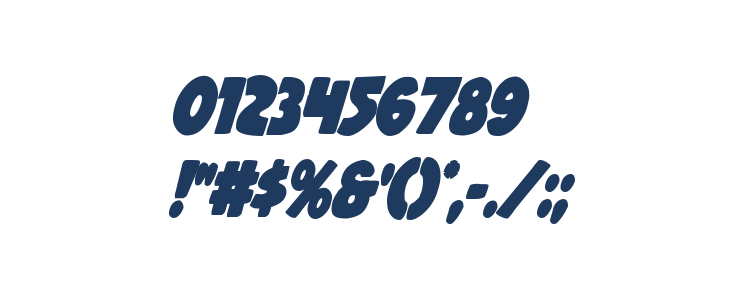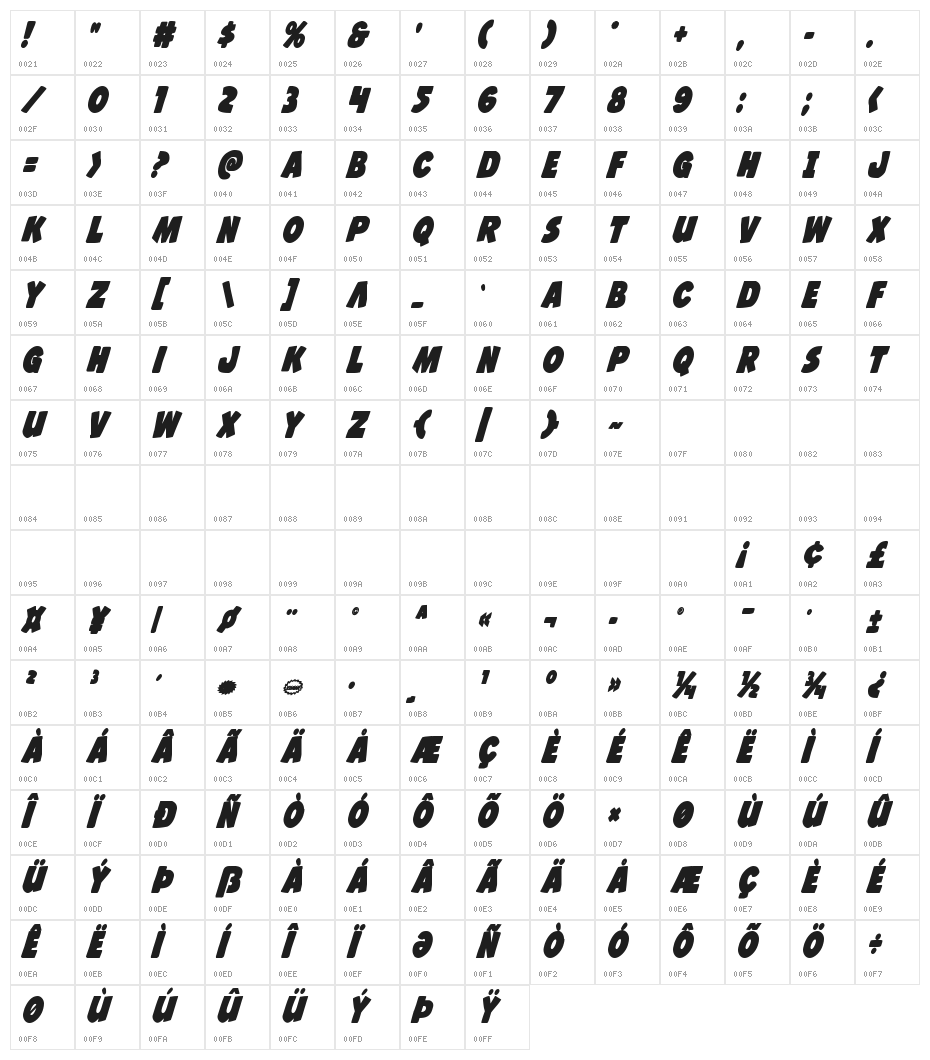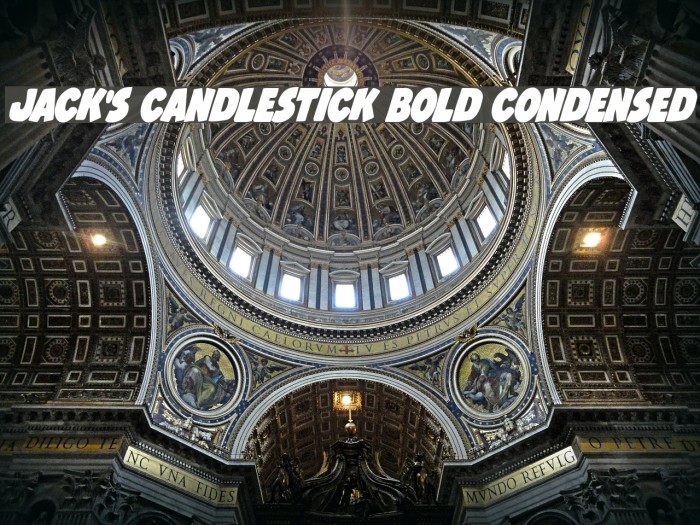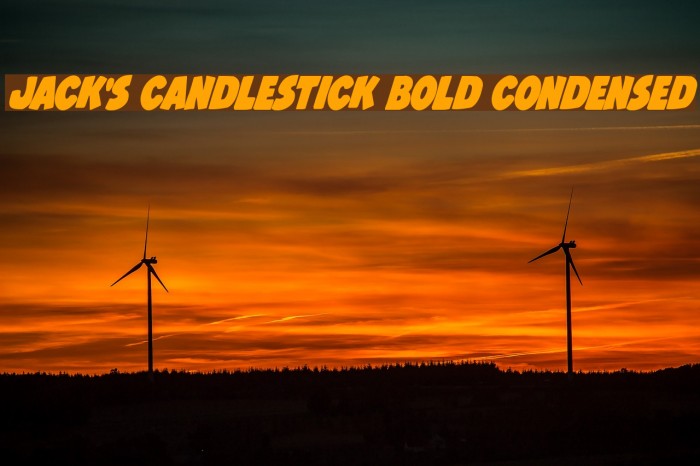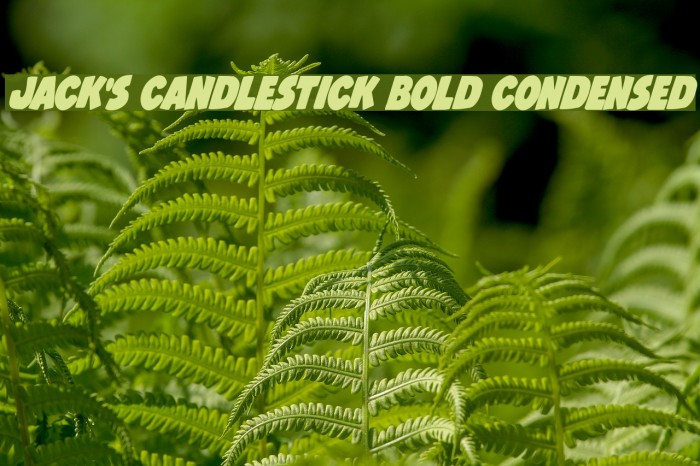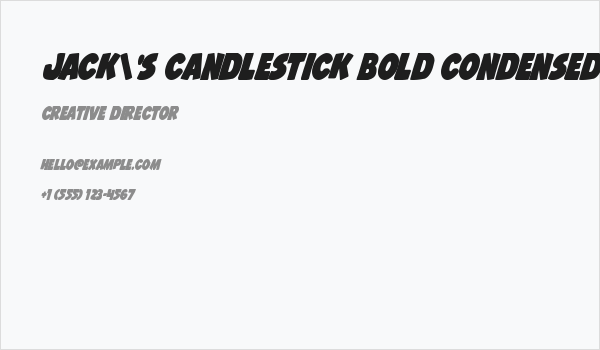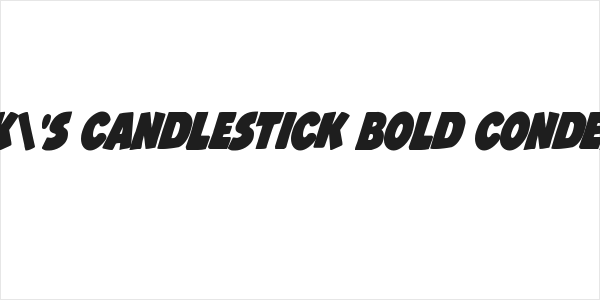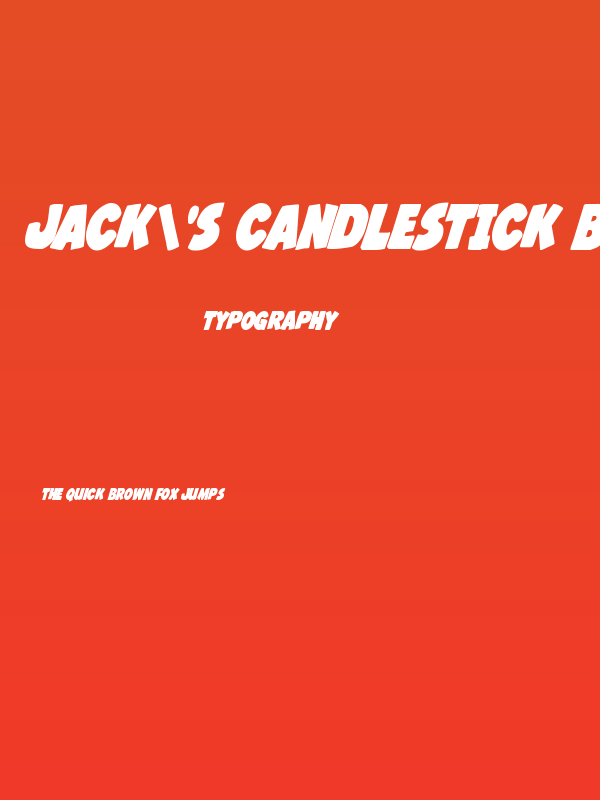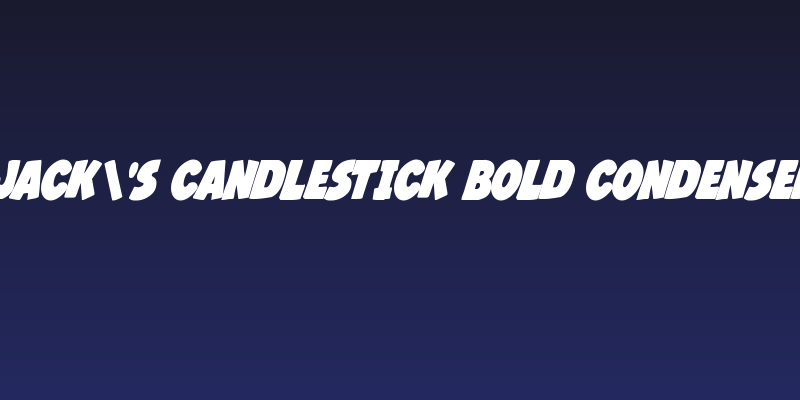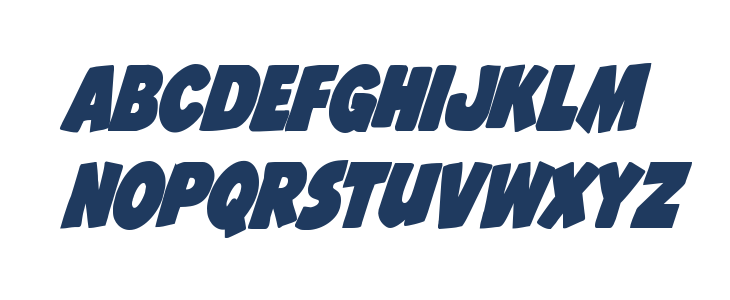
Jack's Candlestick Bold Condensed Font
Jack's Candlestick Bold Condensed Description
This bold, condensed font features thick, heavy strokes that create a strong visual impact. The letters are tightly spaced, enhancing the boldness and making it ideal for attention-grabbing headlines. The characters have a slightly slanted appearance, adding a dynamic and energetic feel. The font includes a full set of uppercase and lowercase letters, numbers, and a variety of special characters. Its bold and condensed nature makes it suitable for projects that require a strong, assertive presence.
| Proposed Projects | Ideal for posters, banners, advertising materials, and any project needing a bold statement. |